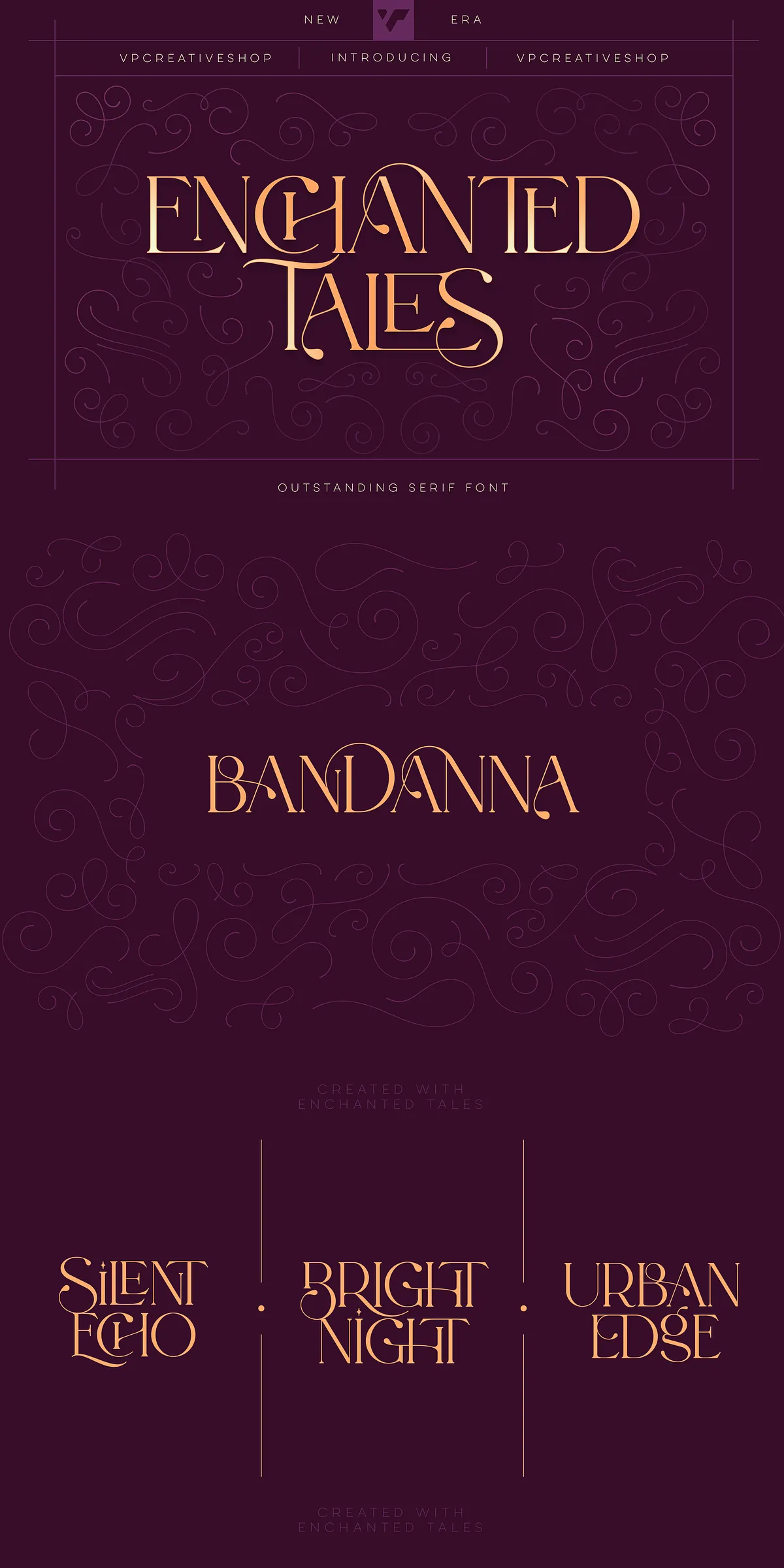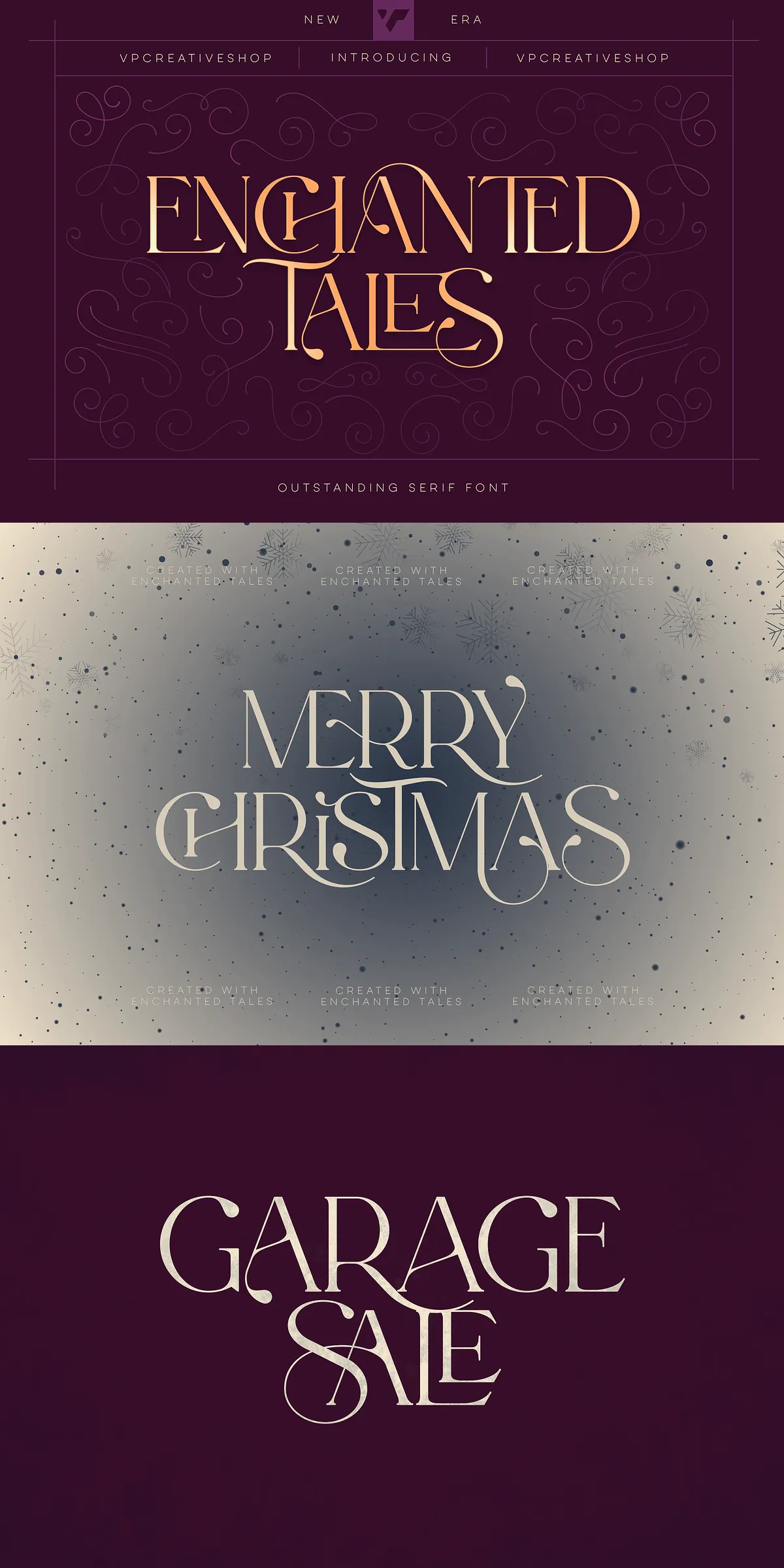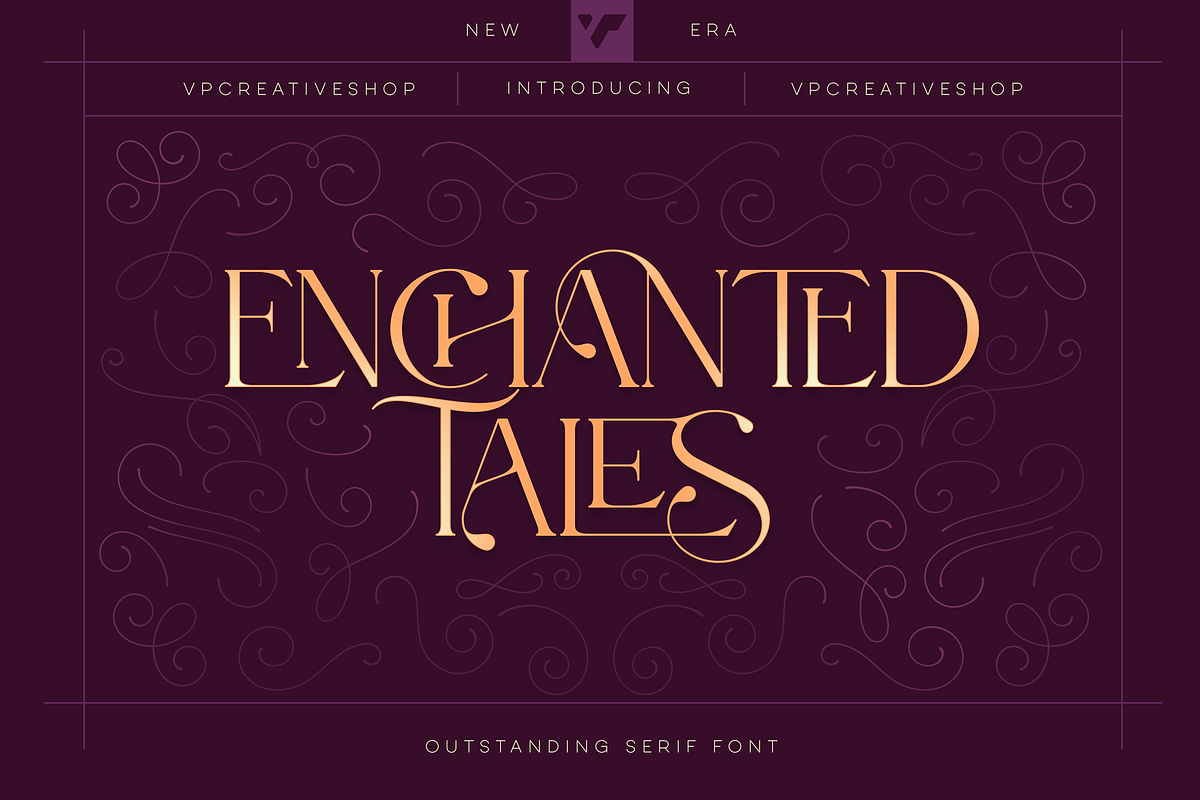
Step into a world where classic elegance meets modern creativity with Enchanted Tales — a handcrafted serif font designed for dreamers, storytellers, and visionary designers. This isn’t just a font; it’s a gateway to unforgettable visual narratives. With support for 87 languages, over 150 carefully designed ligature glyphs, and a rich collection of alternate characters, Enchanted Tales empowers you to create designs that are not only beautiful but truly enchanting.
Why Enchanted Tales is the Ultimate Creative Choice
Built for those who demand both artistry and functionality, Enchanted Tales delivers a rare balance of historical depth and contemporary relevance. Its gracefully swelled serifs, refined counterforms, and balanced x-heights ensure superior readability across all formats—whether you’re crafting a sleek digital headline, a luxurious print cover, or a standout branding identity. This font doesn’t just look good—it performs at the highest level, seamlessly adapting to any medium.
Unlock the Magic: Over 150 Custom Ligature Glyphs
Every ligature in Enchanted Tales is a deliberate stroke of design poetry. From elegant combinations like FA, TE, and THE to dramatic sequences such as TWELVE, OUT, and AND, these ligatures eliminate awkward spacing and elevate your text from ordinary to extraordinary. Whether you’re designing a wedding invitation, an editorial feature, or a vintage-inspired poster, these ligatures add a layer of sophistication that speaks without words.
Endless Creativity with Custom Alternate Glyphs
Enchanted Tales offers a treasure trove of alternate glyphs—each one meticulously crafted to provide variety, personality, and uniqueness. Swap out standard letters with flourished or condensed variants to instantly transform your typographic layout. This flexibility is ideal for:
- Logo Design: Craft a signature mark that stands out with a bold individuality.
- Lettering Projects: Add hand-drawn charm to posters, signs, and digital art.
- Publication Layouts: Use alternates to break text monotony and guide the reader’s eye.
- Vintage or Themed Design: Infuse your work with nostalgic authenticity and romantic flair.
Powerful Multilingual Support for Global Designers
Designed with inclusivity at its core, Enchanted Tales supports 87 languages across diverse language families. Whether you’re designing for French, German, Swahili, Polish, or Indonesian, you can trust that every character, diacritic, and punctuation mark is correctly rendered and visually harmonious. This makes Enchanted Tales a powerful tool for international brands, publishers, and multicultural marketing campaigns.
Perfect for Projects That Demand Elegance and Impact
Whether you’re designing a book cover that invites readers in, a formal invitation that whispers elegance, a brand identity that commands attention, or a magazine spread that tells a story, Enchanted Tales ensures your message is delivered with charisma and grace. It turns text into art and words into experiences.